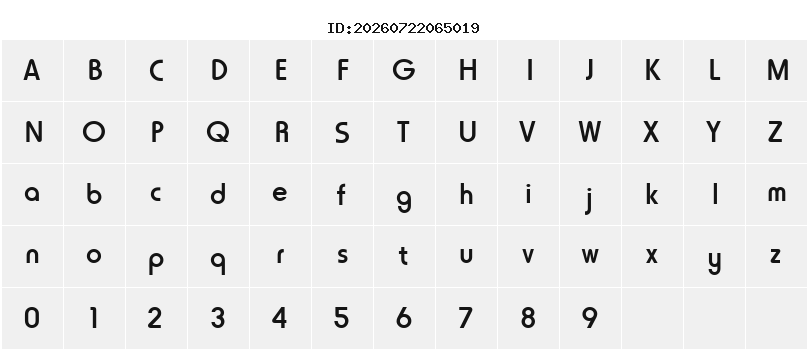
About HoratioDMed.ttf
HoratioDMed.ttf is a modern, elegant sans-serif font designed for ultimate readability and visual harmony. Perfect for branding, headlines, web design, and print materials.